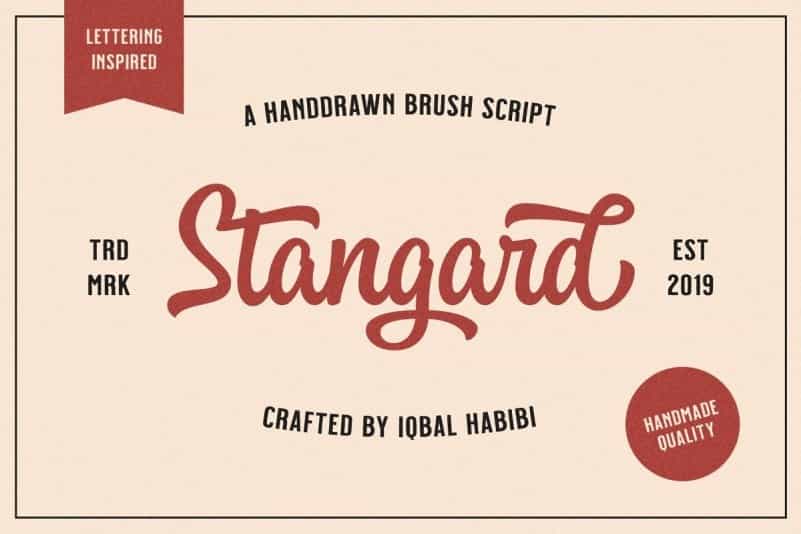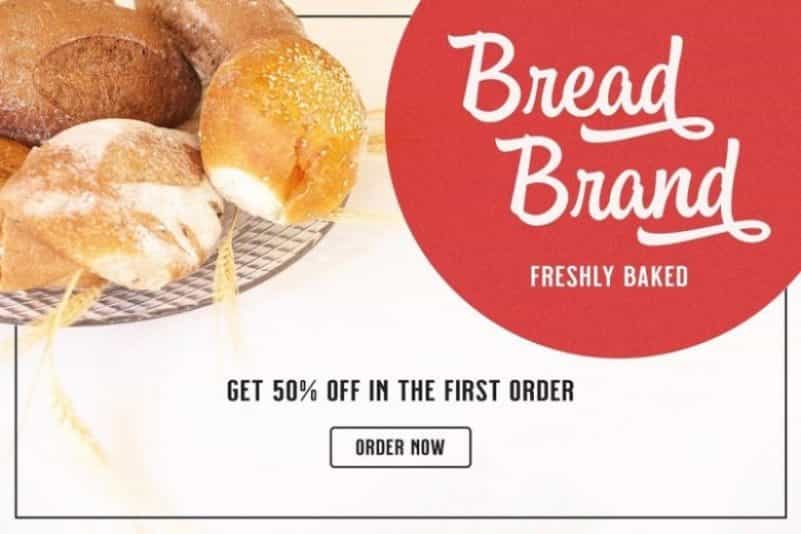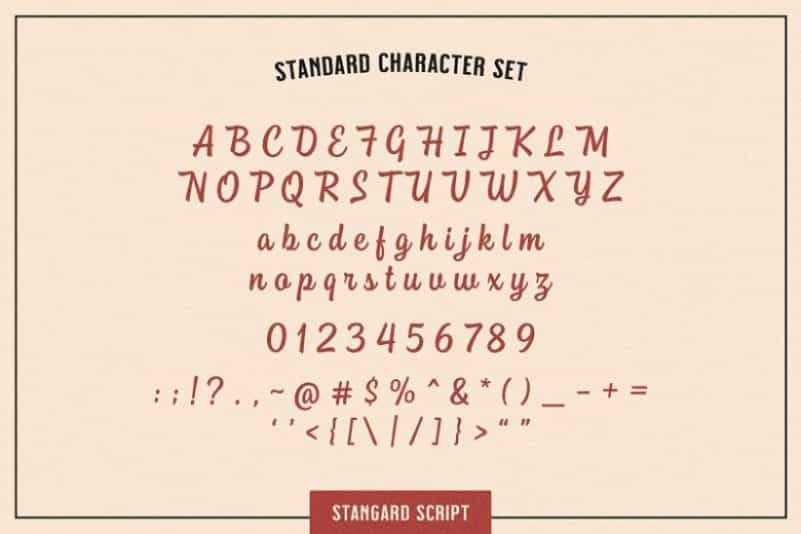
Stangard is a hand drawn script inspired by brush lettering.Stangard has many alternative characters and ligatures. Great for creating lettering works, logotype, t-shirt design, packaging design, signboard, poster, and many more.